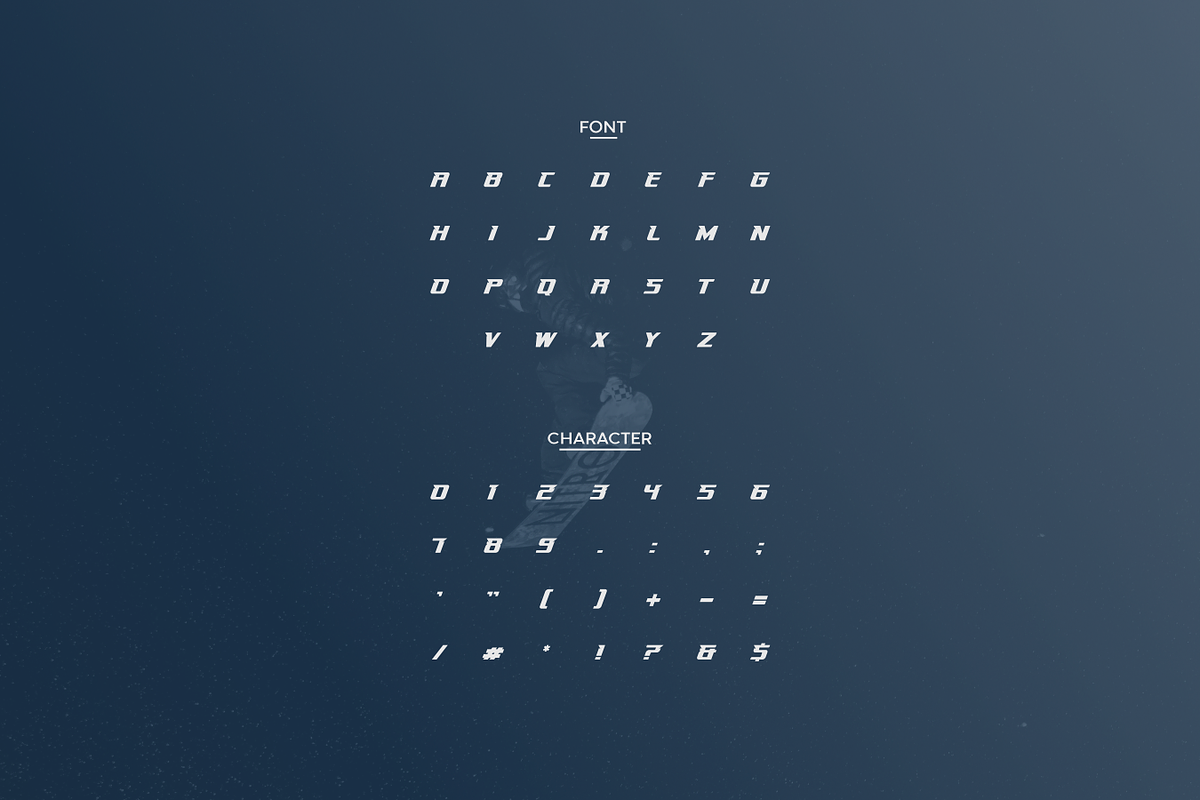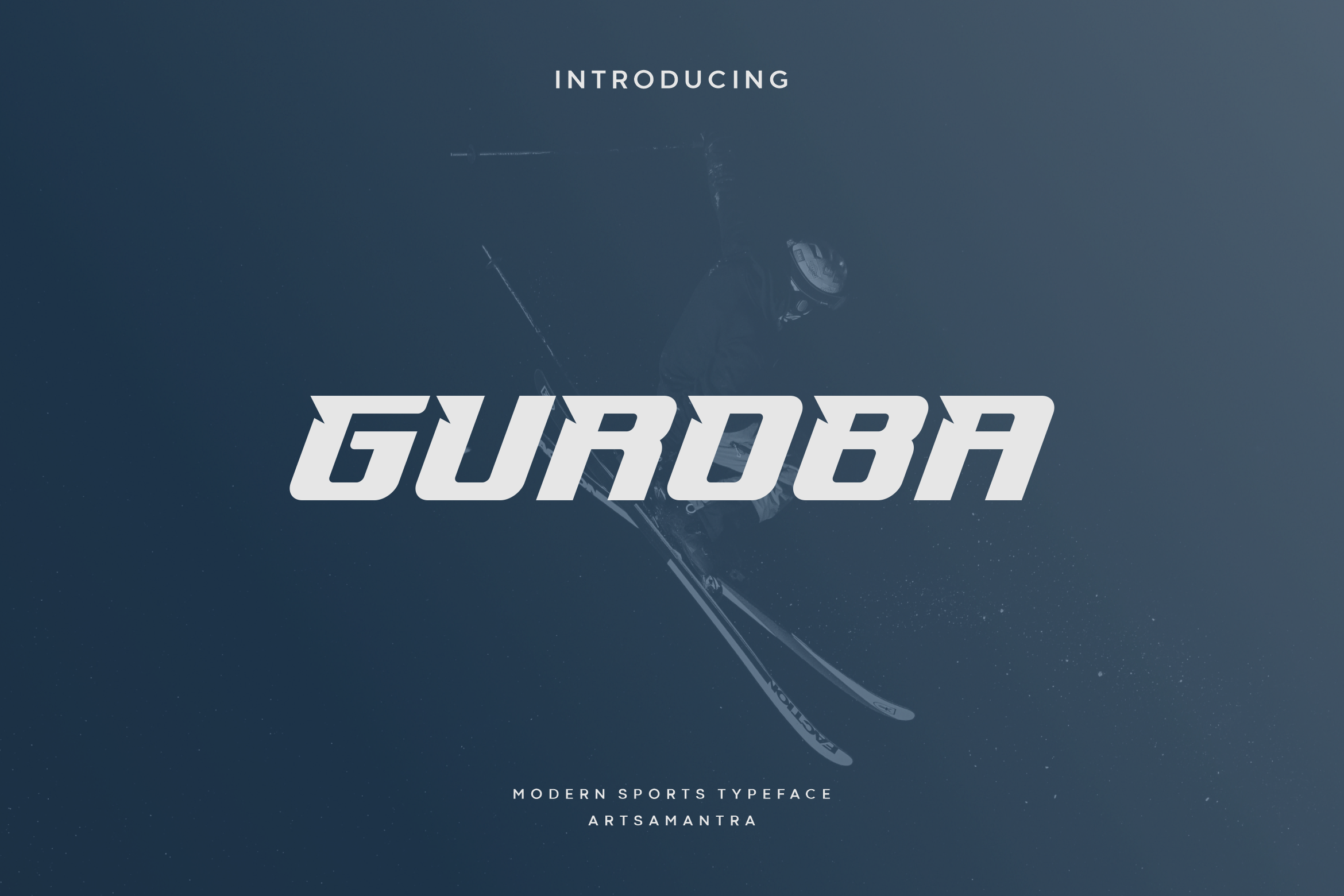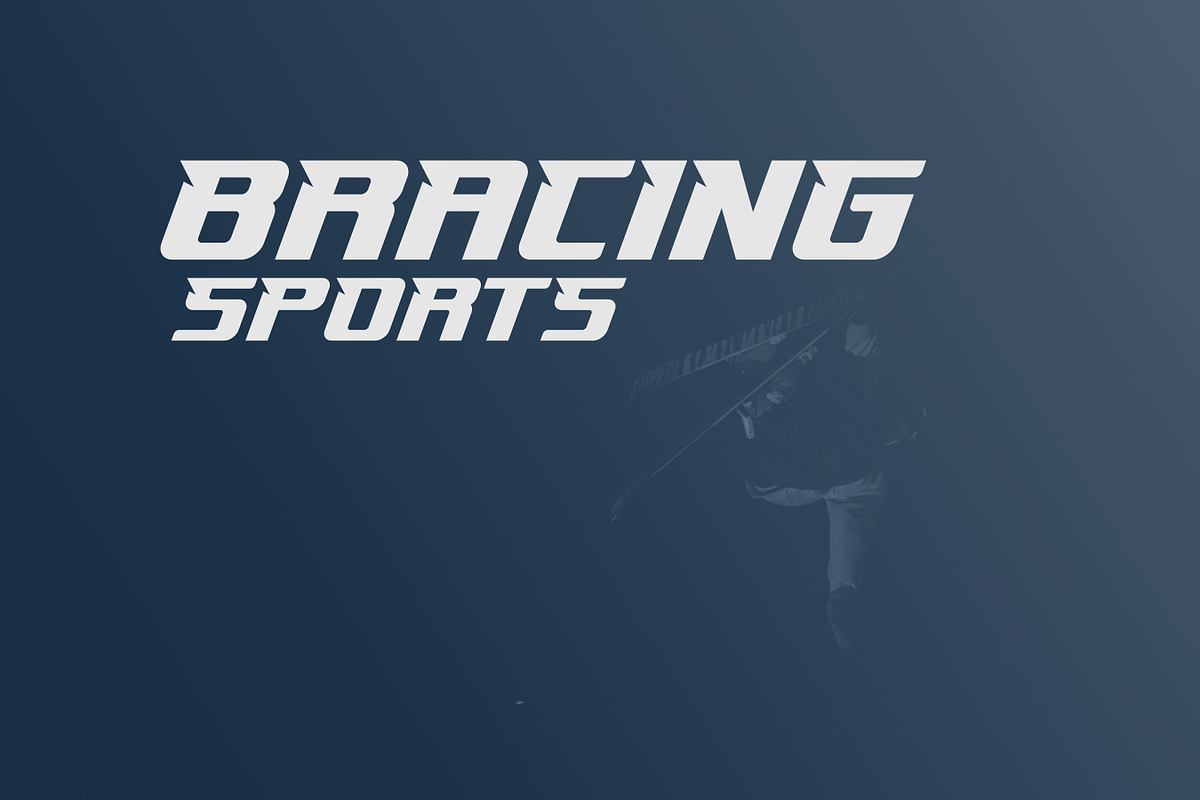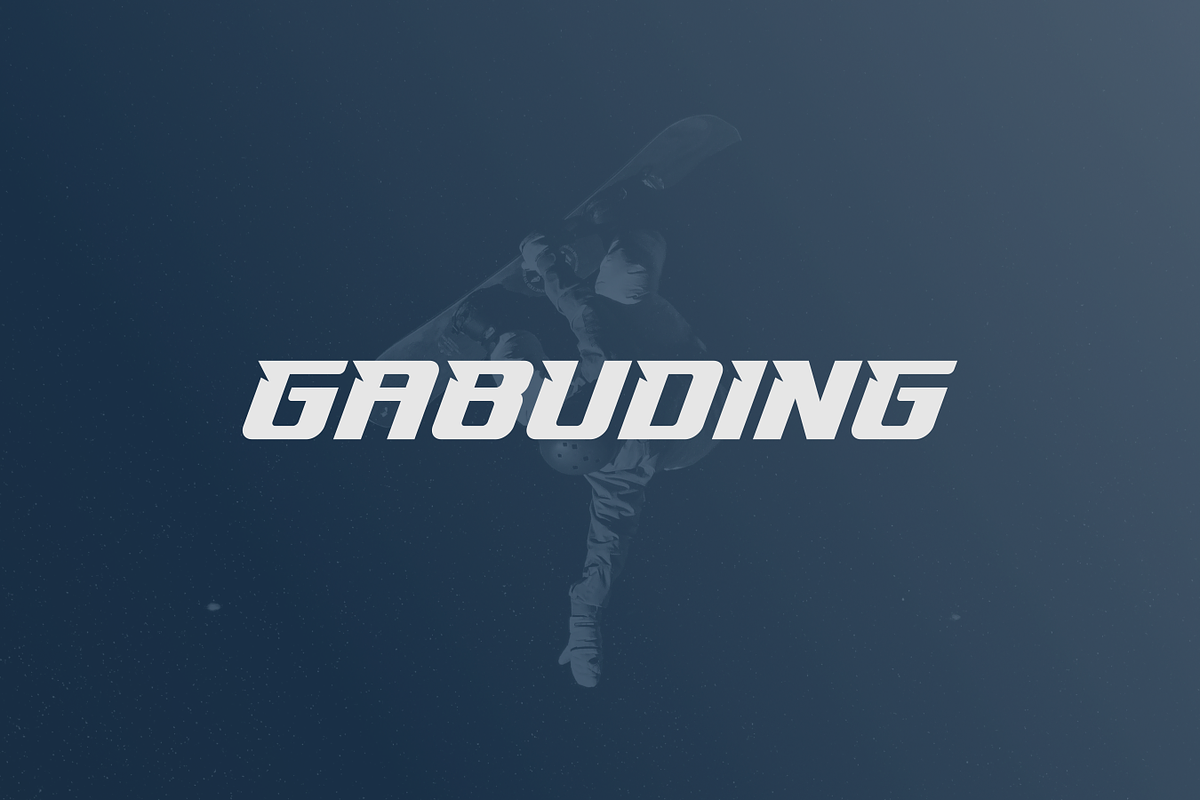
Guroba - Modern Sports Typeface
Guroba is modern letter cutout and dynamic slant, a font that combines future and sport which makes it even more powerful. Coming with all-caps makes it stand out, it will be a great fit for logo, headline, poster, magazine, game, or other modern dynamic text. Grab this for a new and fresh design experience, and good luck with your project!